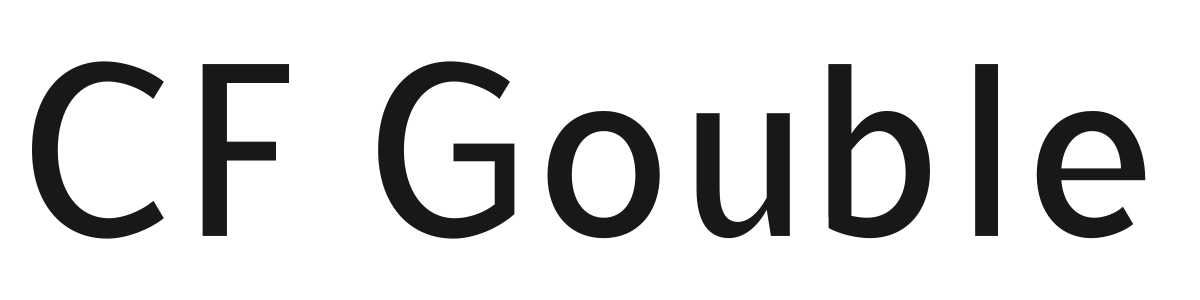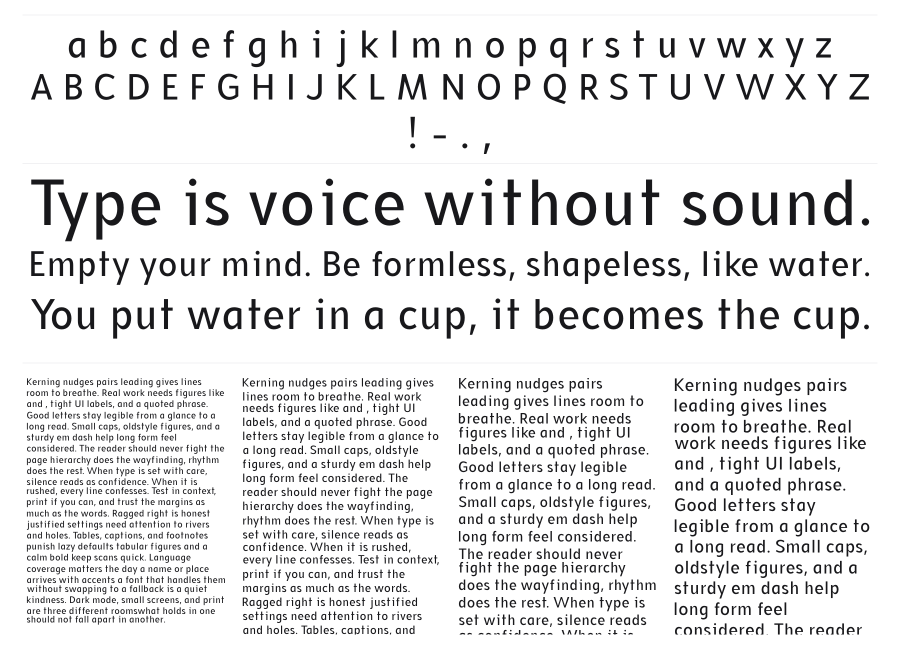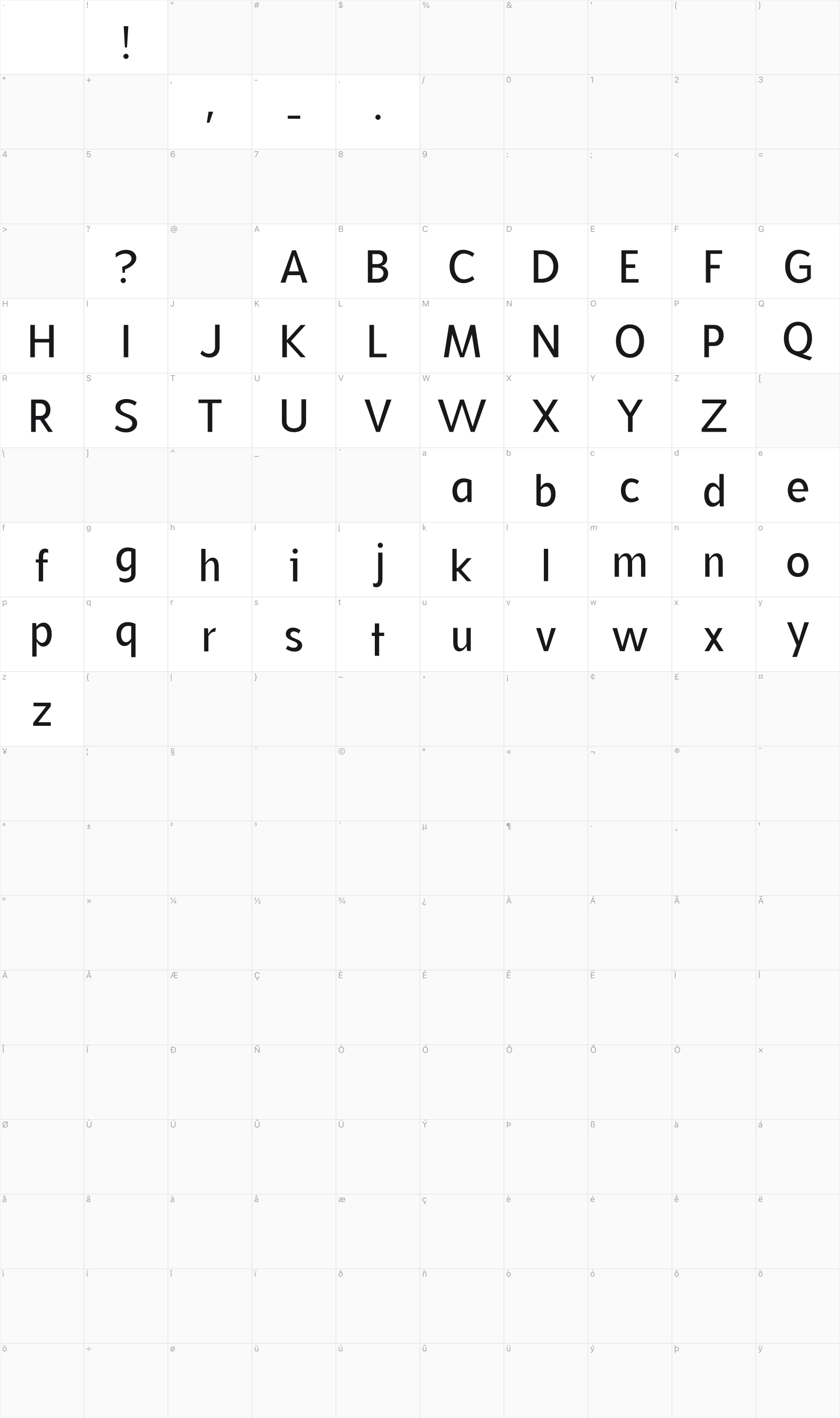
CF Gouble
CF Gouble is a clean humanist sans-serif from Creatifont Studio with low stroke contrast and softly rounded terminals. The wide, open proportions keep it readable and friendly across a range of sizes. It sits comfortably in the space between geometric precision and organic warmth.